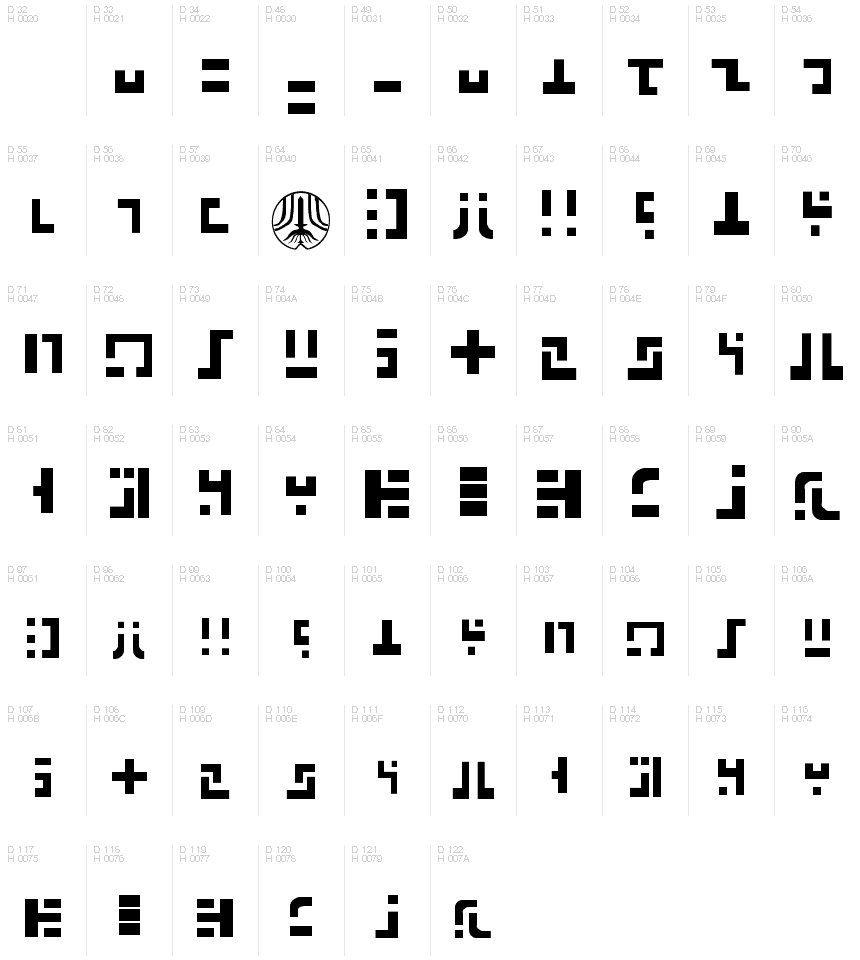
Rylodian
Created by Jim Sorenson. Version 1.0 finished 6/6/97. Based on the language appearing on the screens of The Last Starfighter. The font is the language of the Rylans, hence the name Rylodian. To be distributed freely.